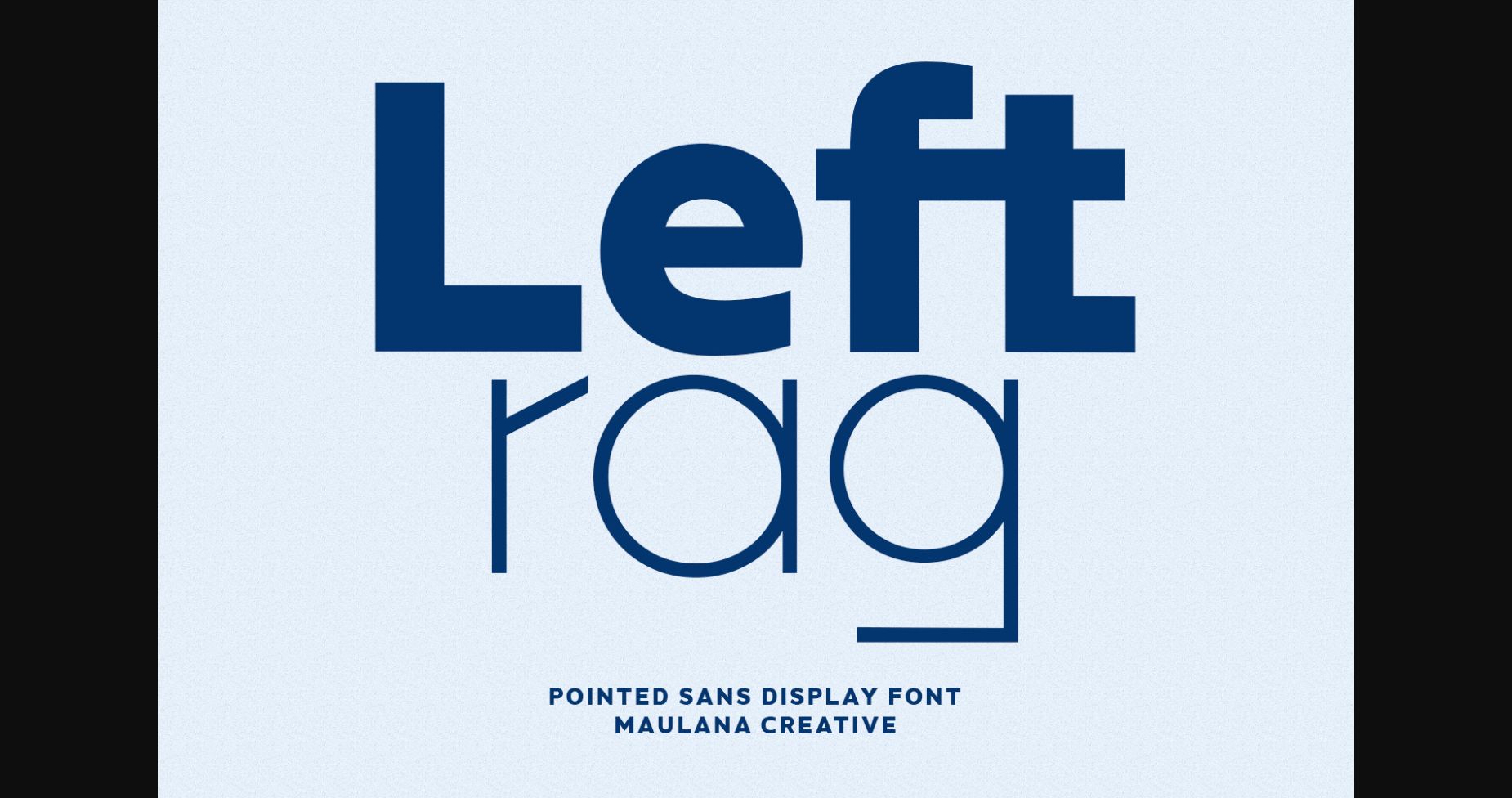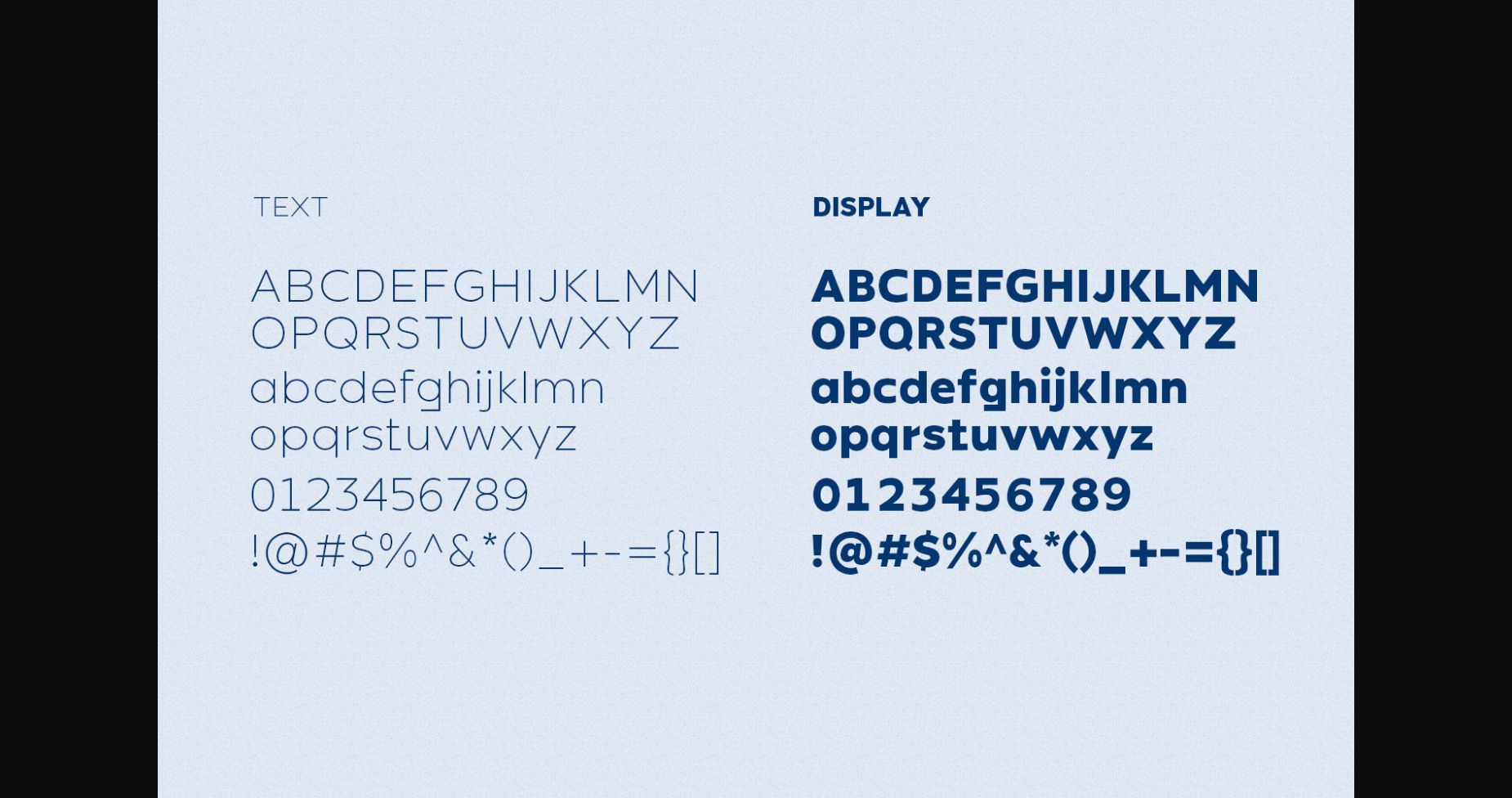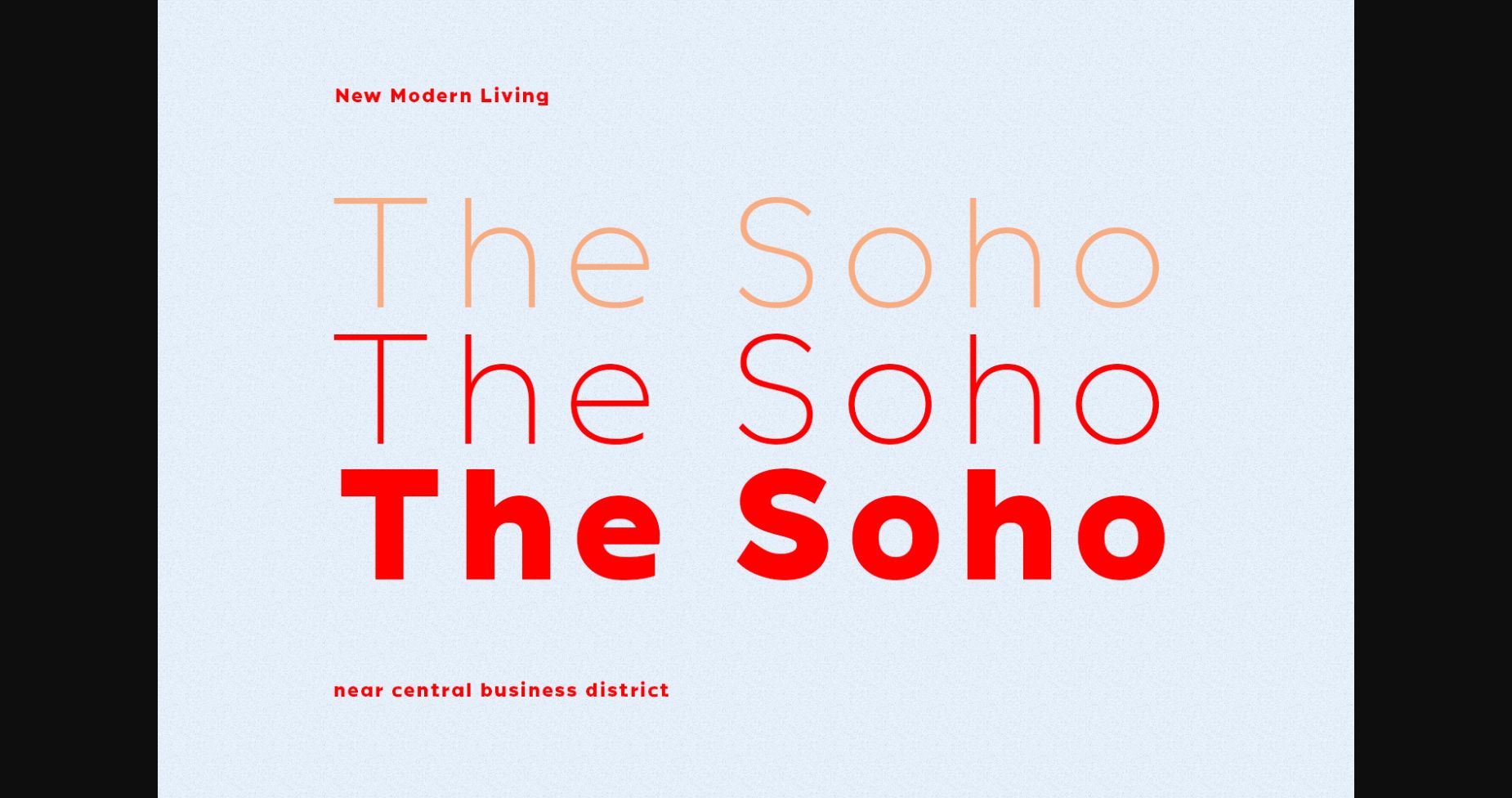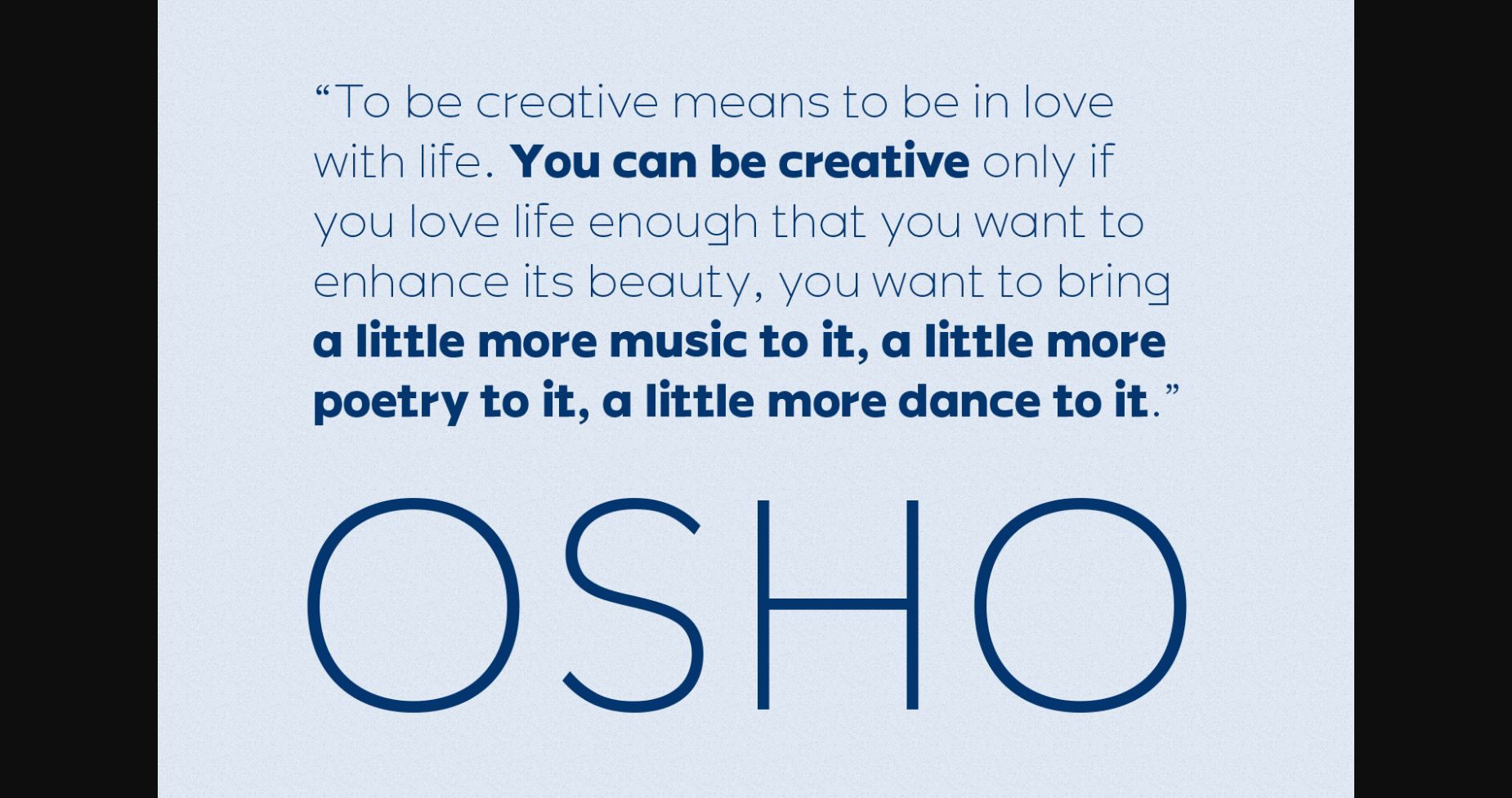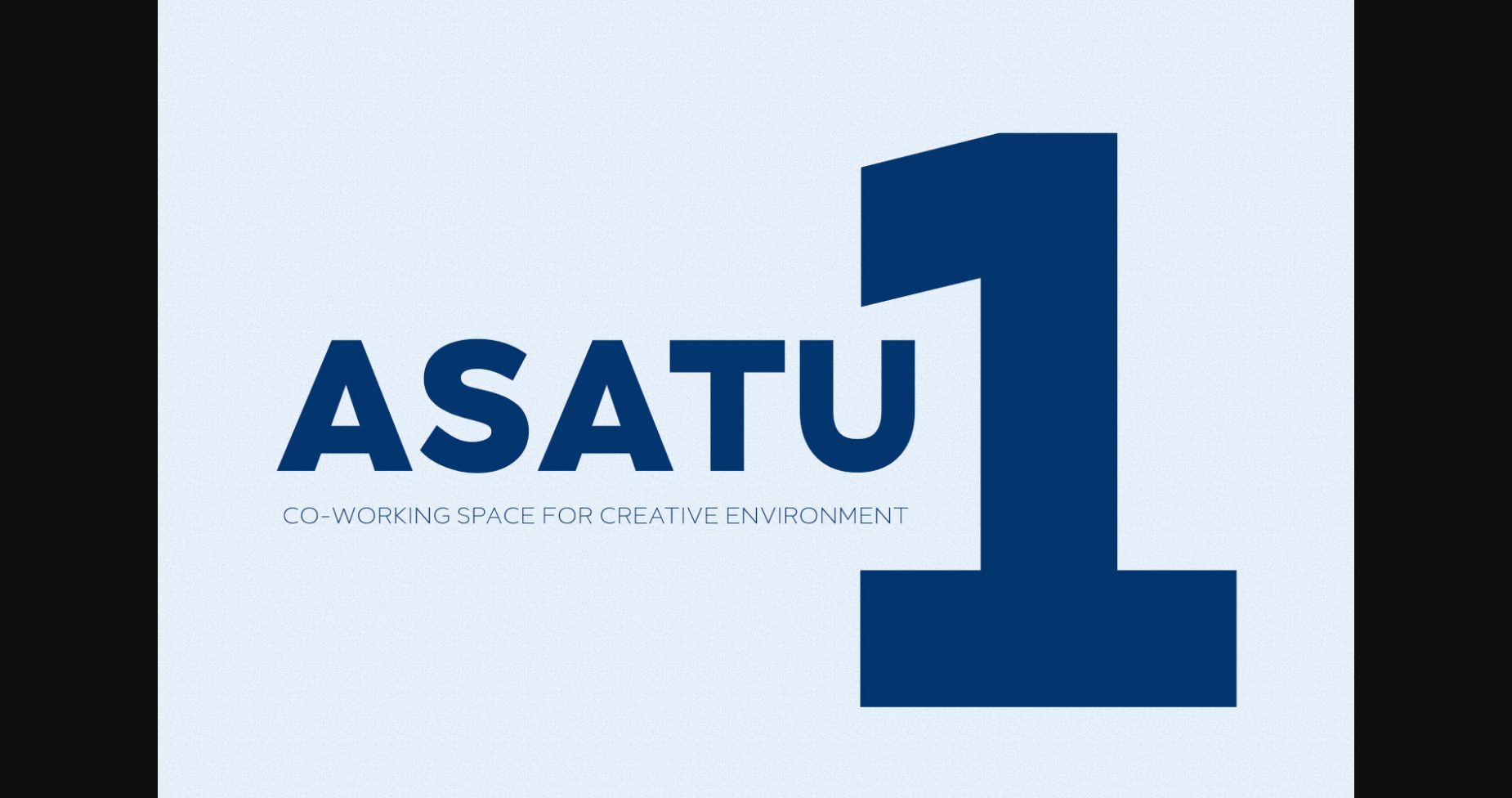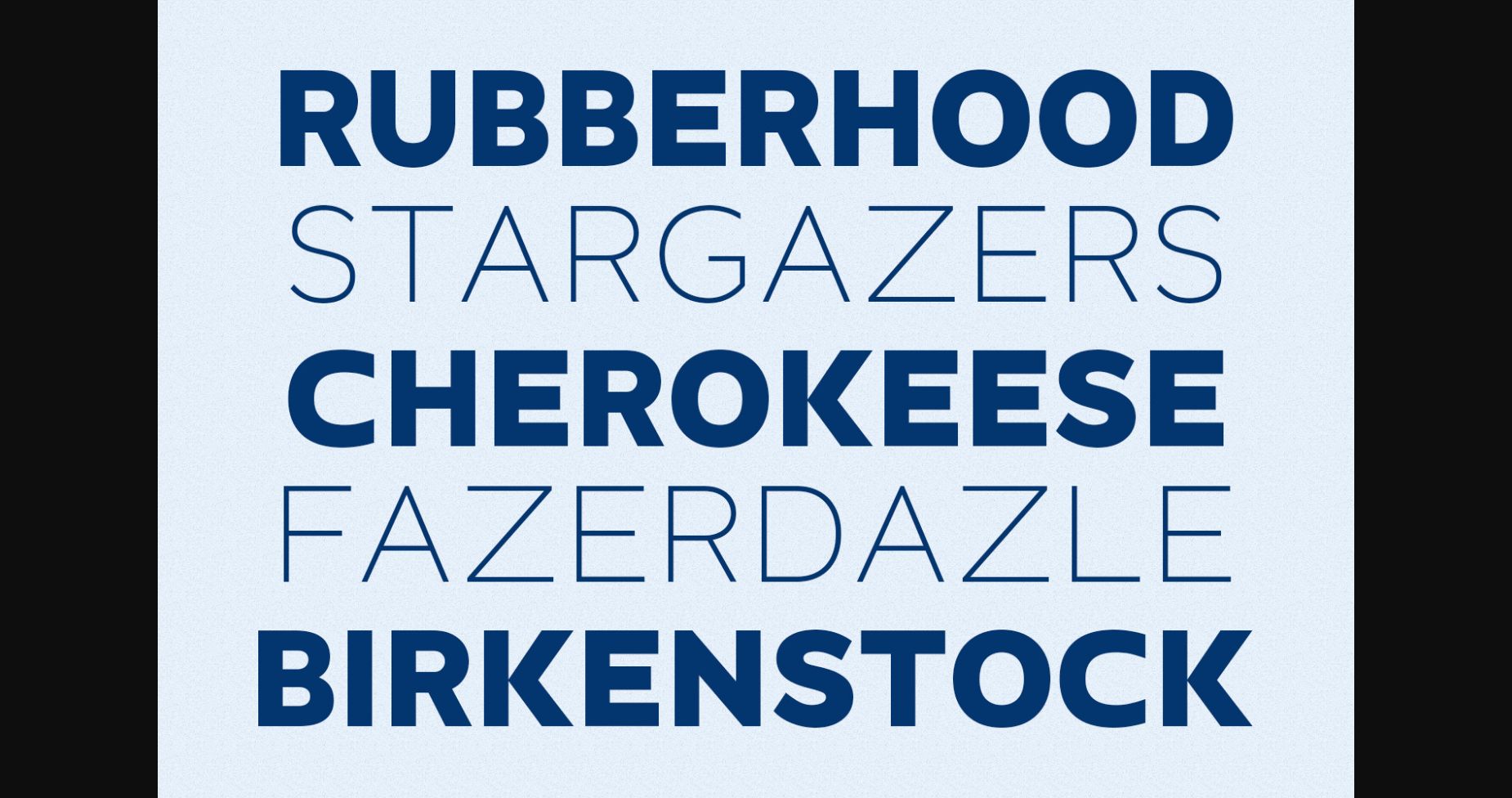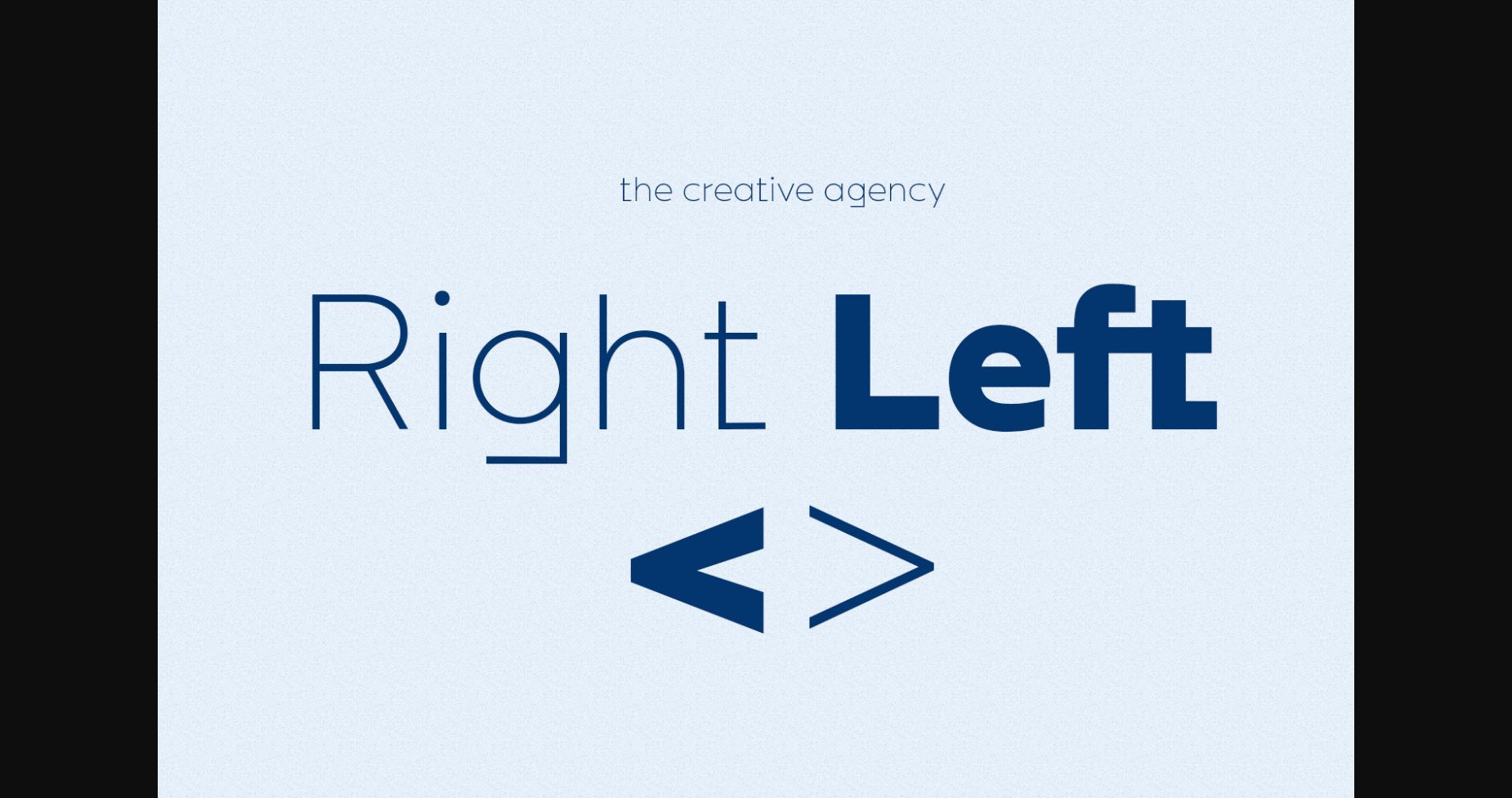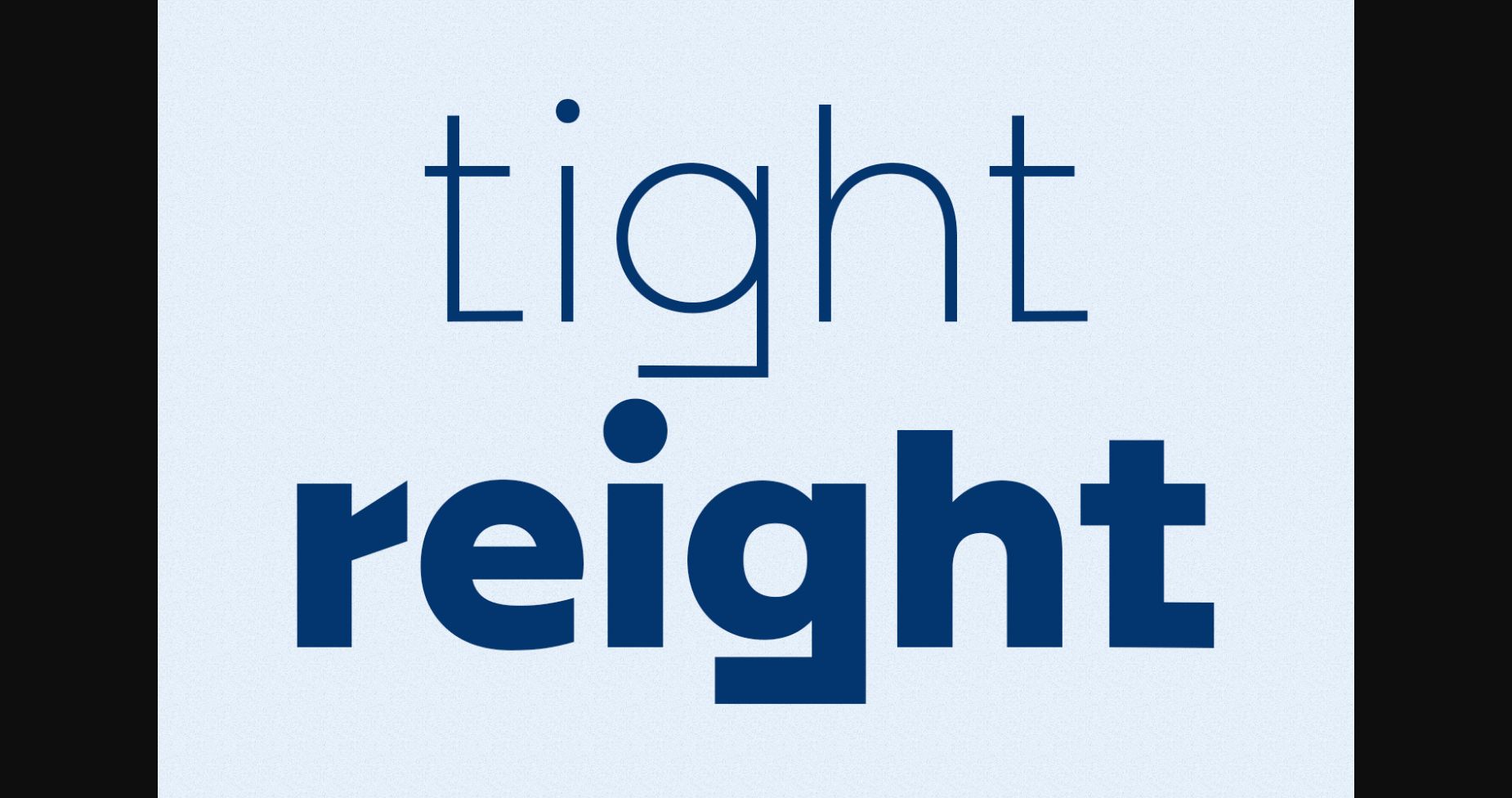
Leftrag is an exquisite handwritten font, masterfully designed to become a true favorite. Fall in love with it and bring your projects to the highest levels!